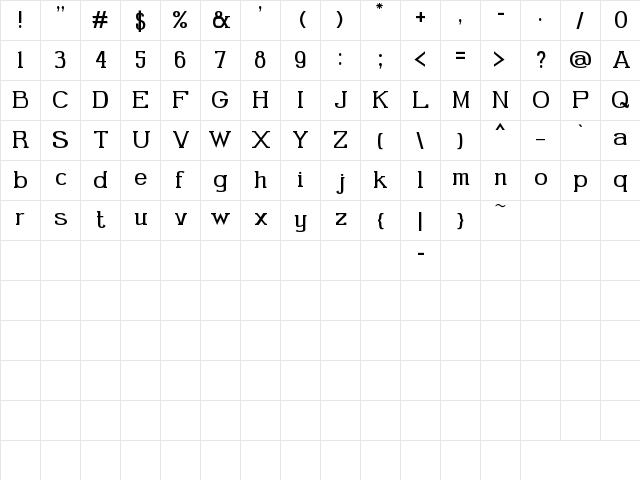
Gabriel Serif carries the refined structure of traditional serif typography, with bracketed terminals and considered proportions that communicate credibility and craft.
Pro Tip: Use Gabriel Serif for editorial body copy and considered headline work. Pair with a neutral sans for UI elements or captions to create a classic hierarchy.